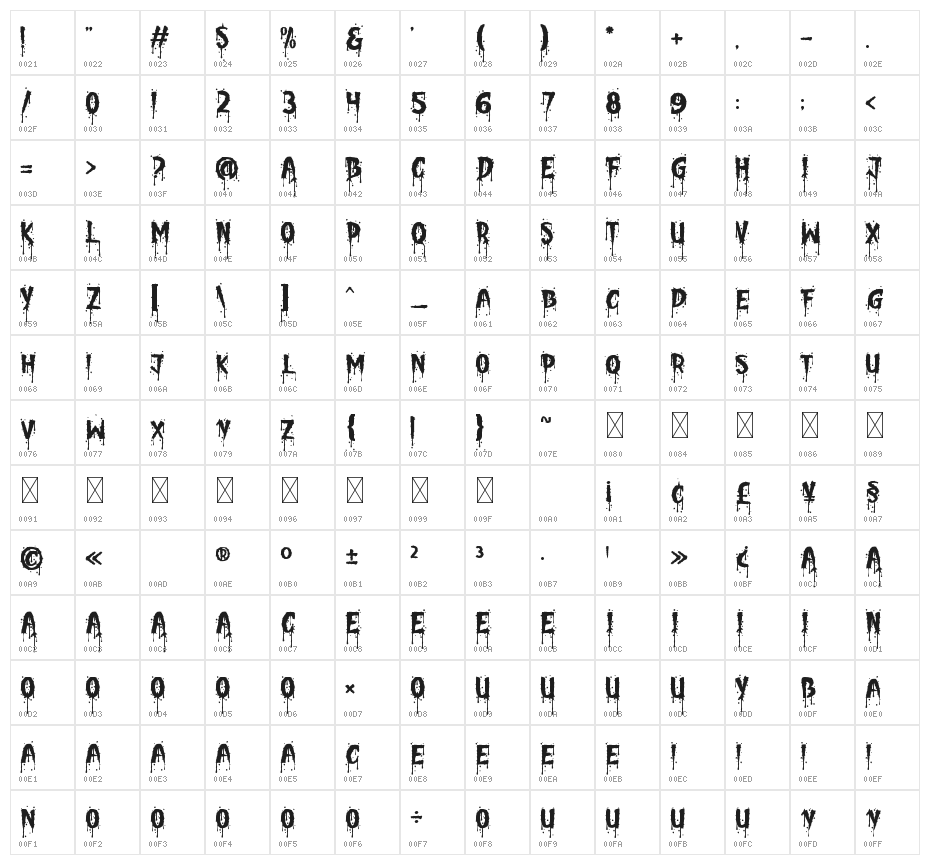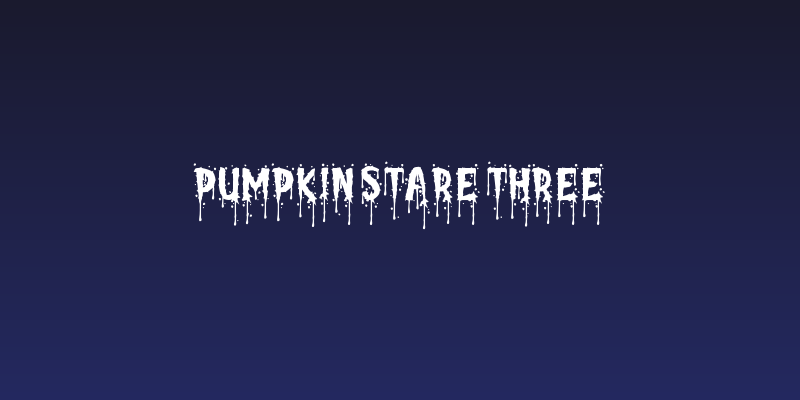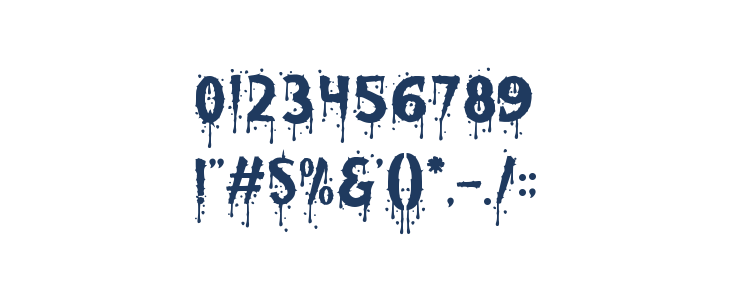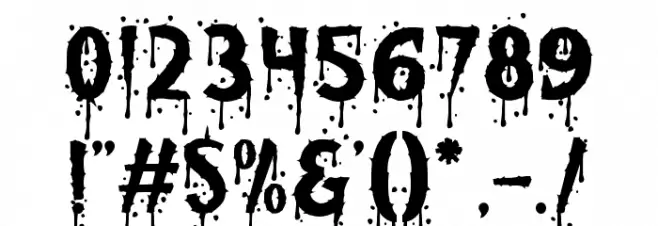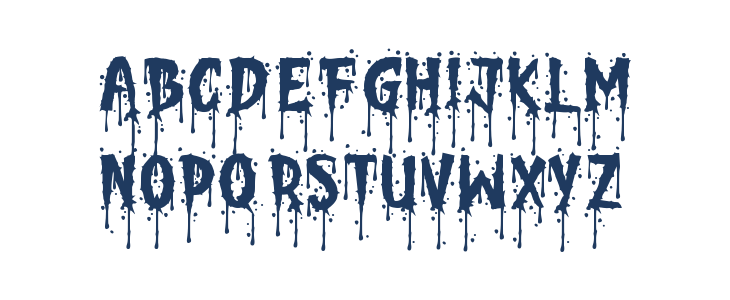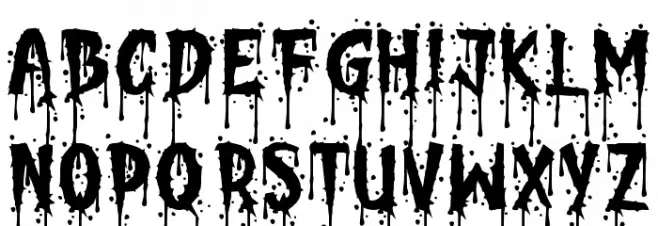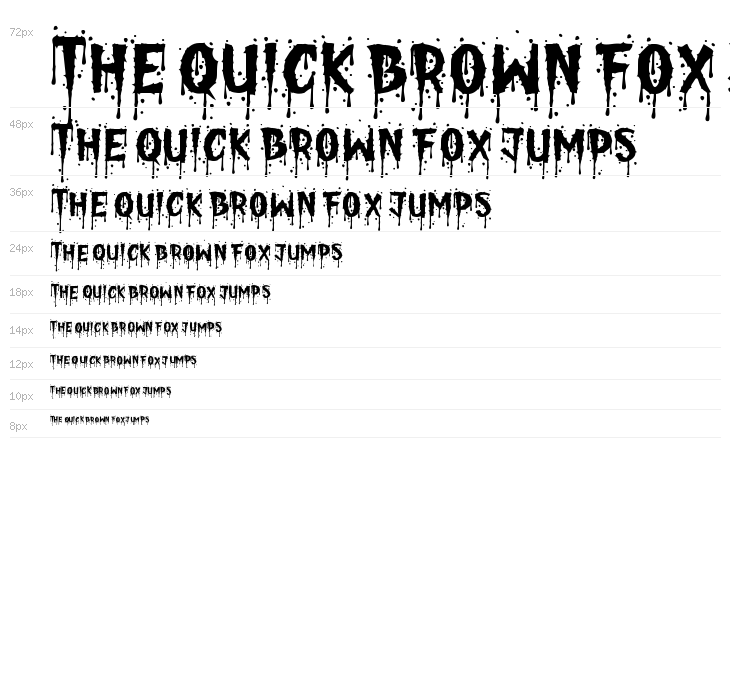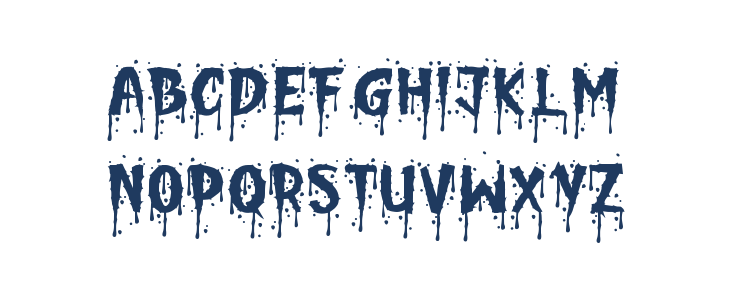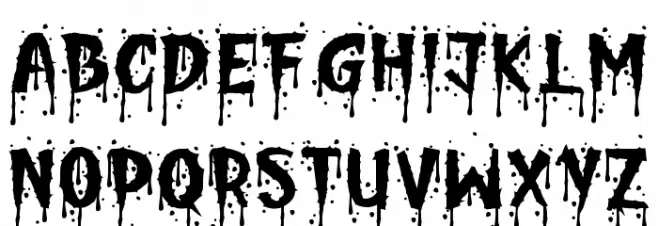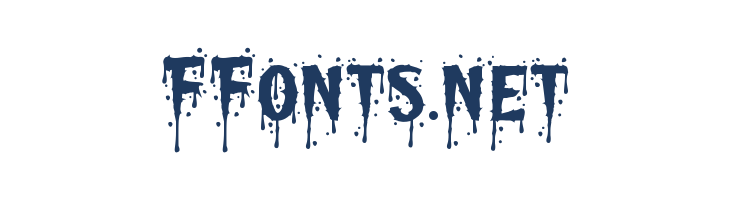
Pumpkin Stare Three Font
Pumpkin Stare Three Description
A decorative display font with irregular, jagged letterforms and dripping, splattered effects reminiscent of horror or Halloween themes. The characters are bold, uneven, and evoke a sense of eeriness and playfulness.
| Overall Style | Decorative, Horror, Playful |
| Use Case | Headlines, Posters, Event Flyers, Logos |
| Proposed Projects | Halloween posters, horror movie titles, spooky event flyers, themed party invitations, haunted house signage. |